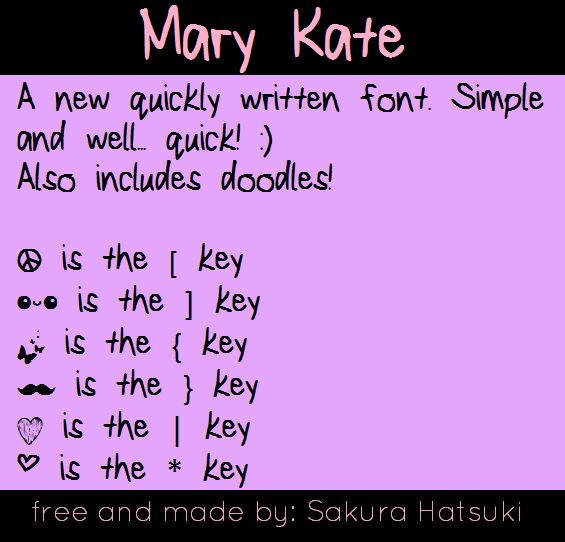
MaryKate
Remember Mary-Kate and Ashley? Yeah, they were some good twins back in the days.
Okay, back to the font... Mary Kate is a cute new font made with my old template. I didn't like the performance of my new template, so Mr. Old Template is back! For now, I guess.
Anyhoo, Mary Kate includes doodles! YAY! Just some random stuff like butterflies and a kawaii face.
Okay, back to the font... Mary Kate is a cute new font made with my old template. I didn't like the performance of my new template, so Mr. Old Template is back! For now, I guess.
Anyhoo, Mary Kate includes doodles! YAY! Just some random stuff like butterflies and a kawaii face.